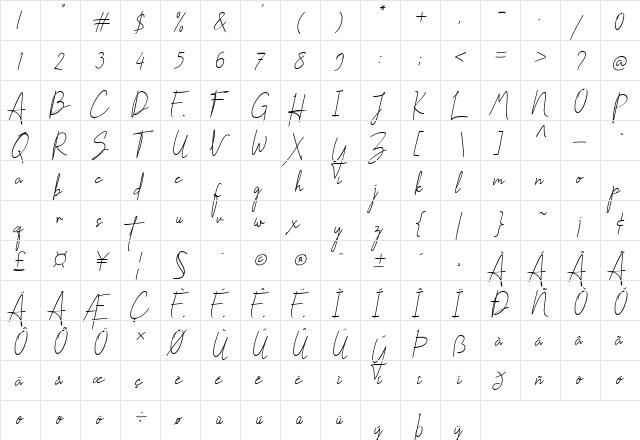
Handikraf Regular
Design Context for Handikraf Typeface
Handikraf brings a calligraphic fluidity to the page — its connecting strokes and expressive curves give it an unmistakably human quality.
Font Pairing: Combine Handikraf with a simple geometric sans for maximum contrast — the tension between flowing curves and clean structure is a classic typographic pairing.
Pro Tip: Pair Handikraf with a clean sans-serif for supporting text. The contrast between fluid script and geometric structure creates an elegant typographic hierarchy.